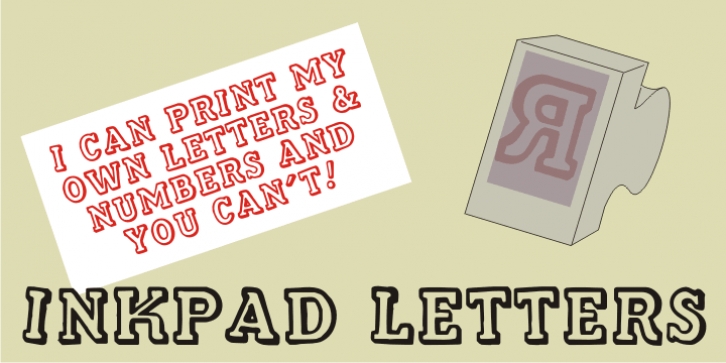
Inkpad LettersJNL is a display serif and hand display font published by Jeff Levine Fonts.
Inkpad Letters JNL joins a number of fonts that were reproduced by Jeff Levine from inked impressions of various rubber stamp printing sets.